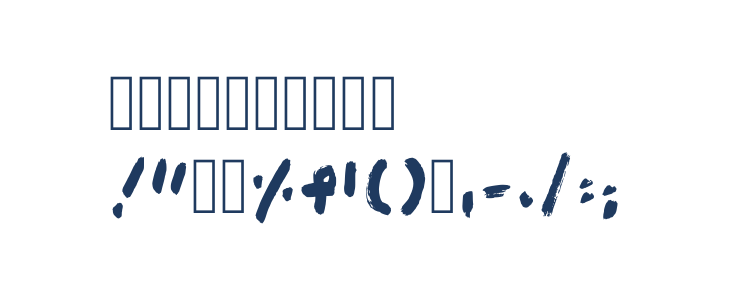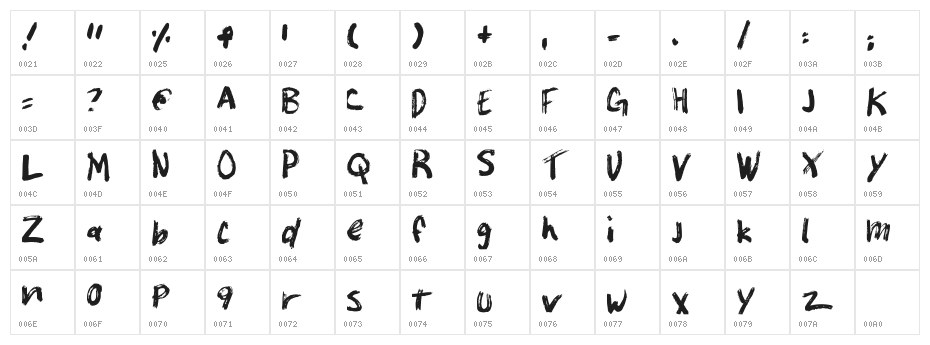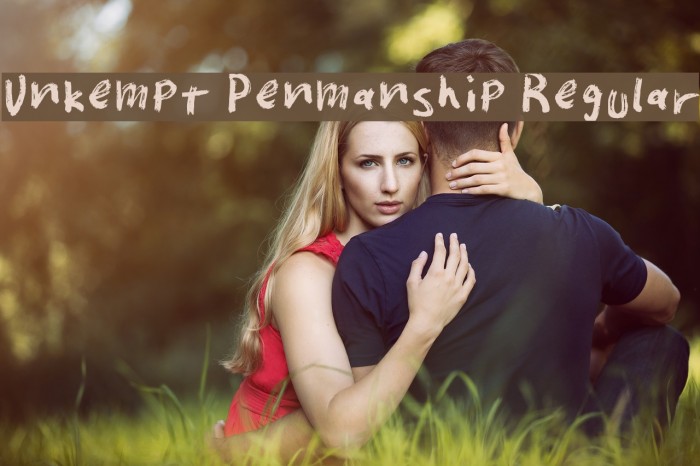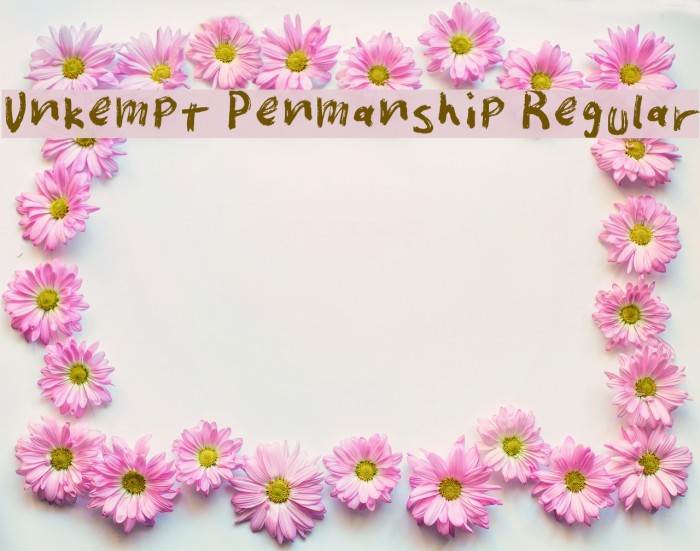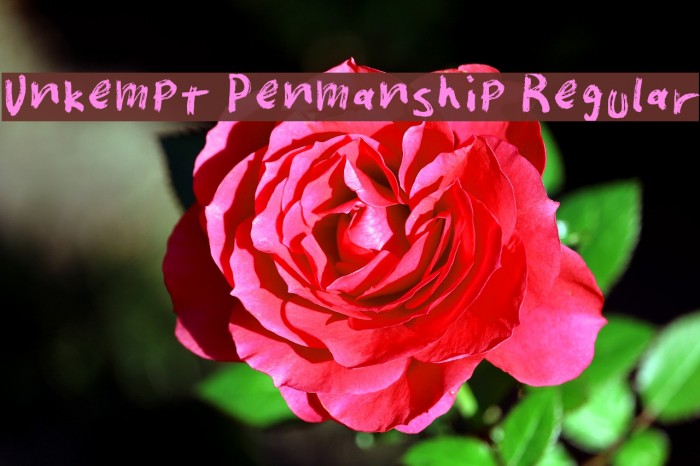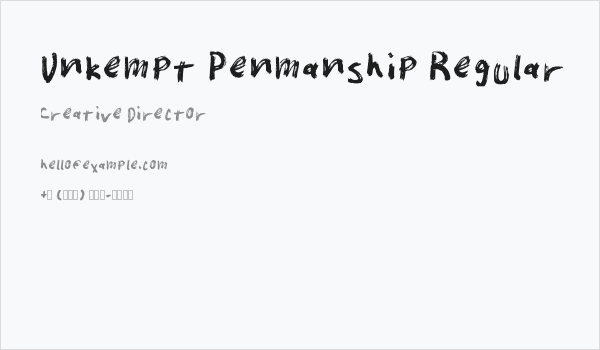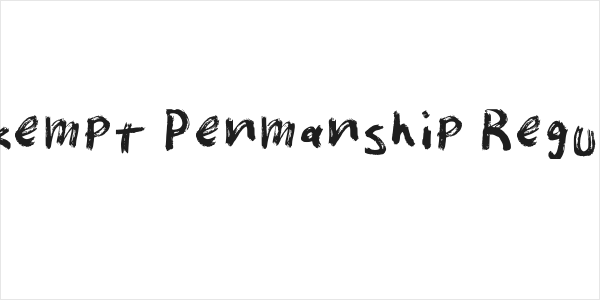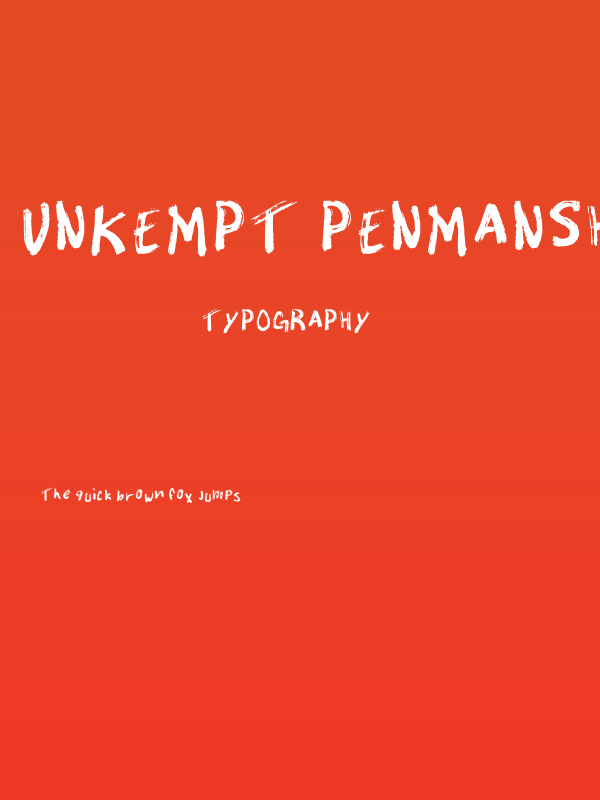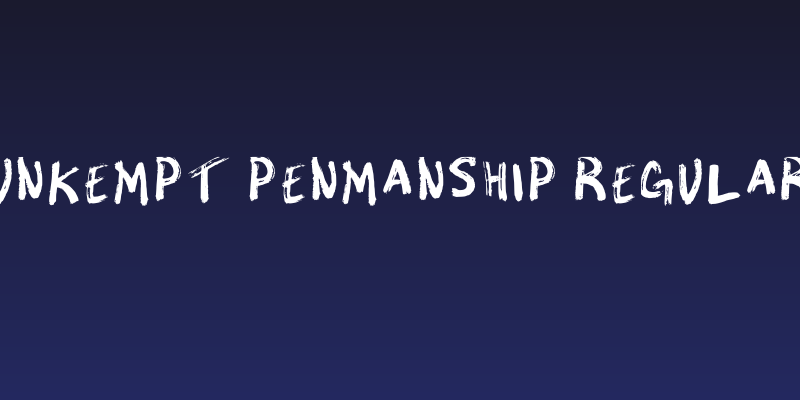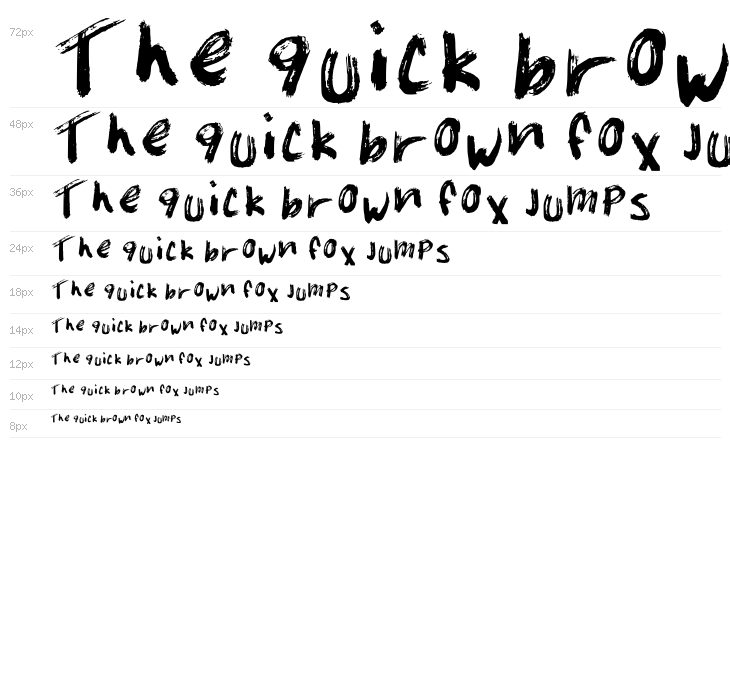
Unkempt Penmanship Regular Font
Unkempt Penmanship Regular Description
This font exudes a raw, expressive energy with its bold, brush-like strokes that mimic the appearance of hand-painted letters. The irregularity in the letterforms adds a sense of authenticity and spontaneity, making it ideal for projects that require a personal touch. The uppercase and lowercase letters maintain a consistent style, with varying thickness that enhances its dynamic look. The numerals and special characters follow the same aesthetic, ensuring a cohesive appearance across all text. Its unique style is perfect for creative projects that aim to stand out.
| Use Case | Headlines, Logos, Artistic projects |
| Proposed Projects | Ideal for posters, album covers, artistic branding, and any project needing a bold, personal touch. |